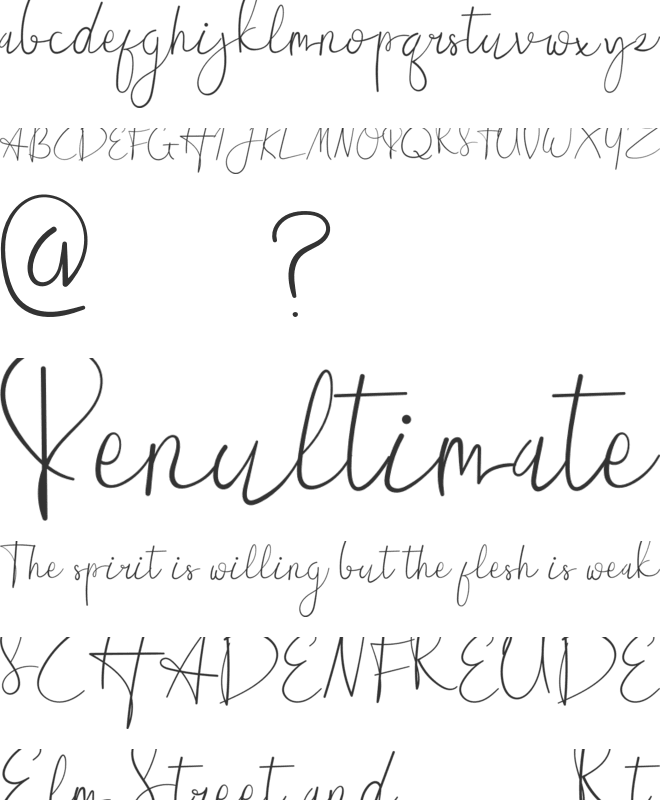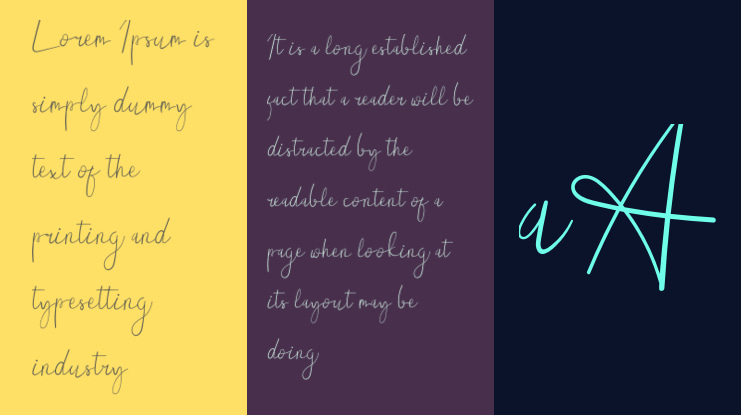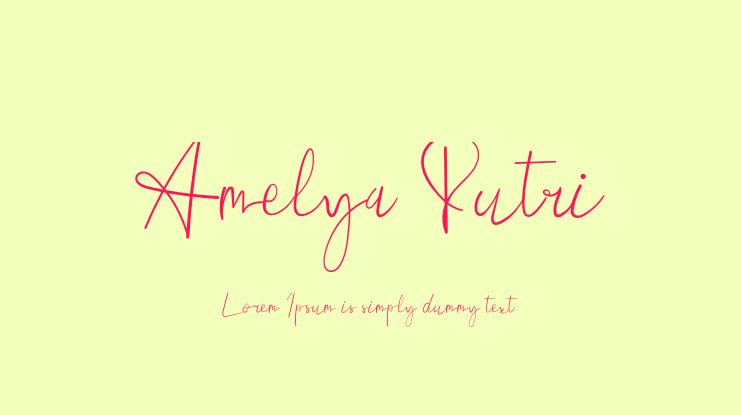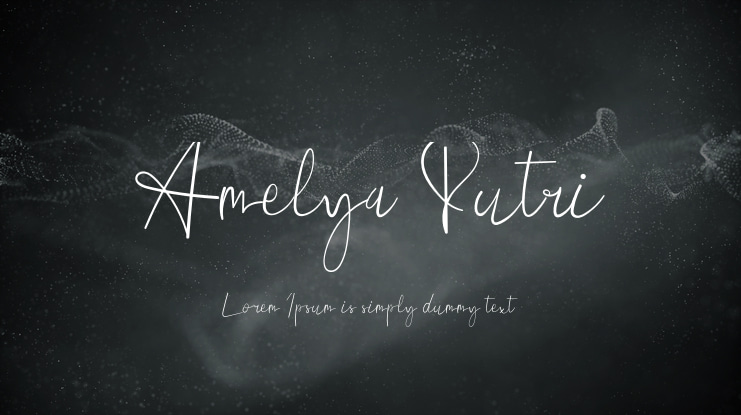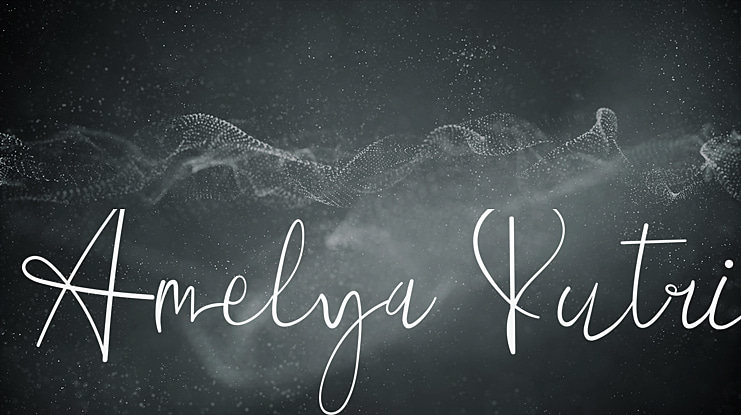
Amelya Putri Font
Amelya Putry is a slim and organic handwritten script font, which is suitable for stationery, fashion branding, wedding invitation, signature, and more. It is also supported multilingual or international characters and swashes to make the experience better.